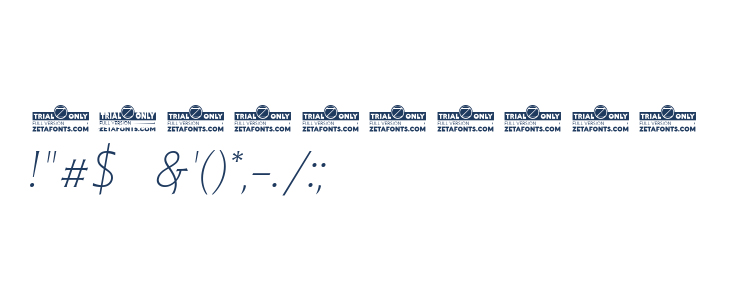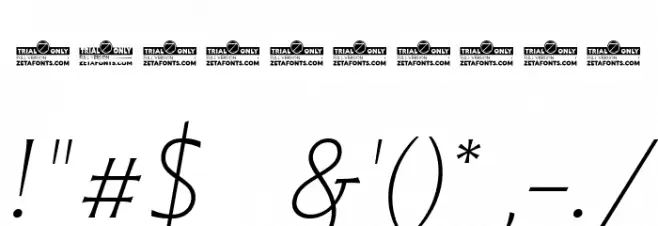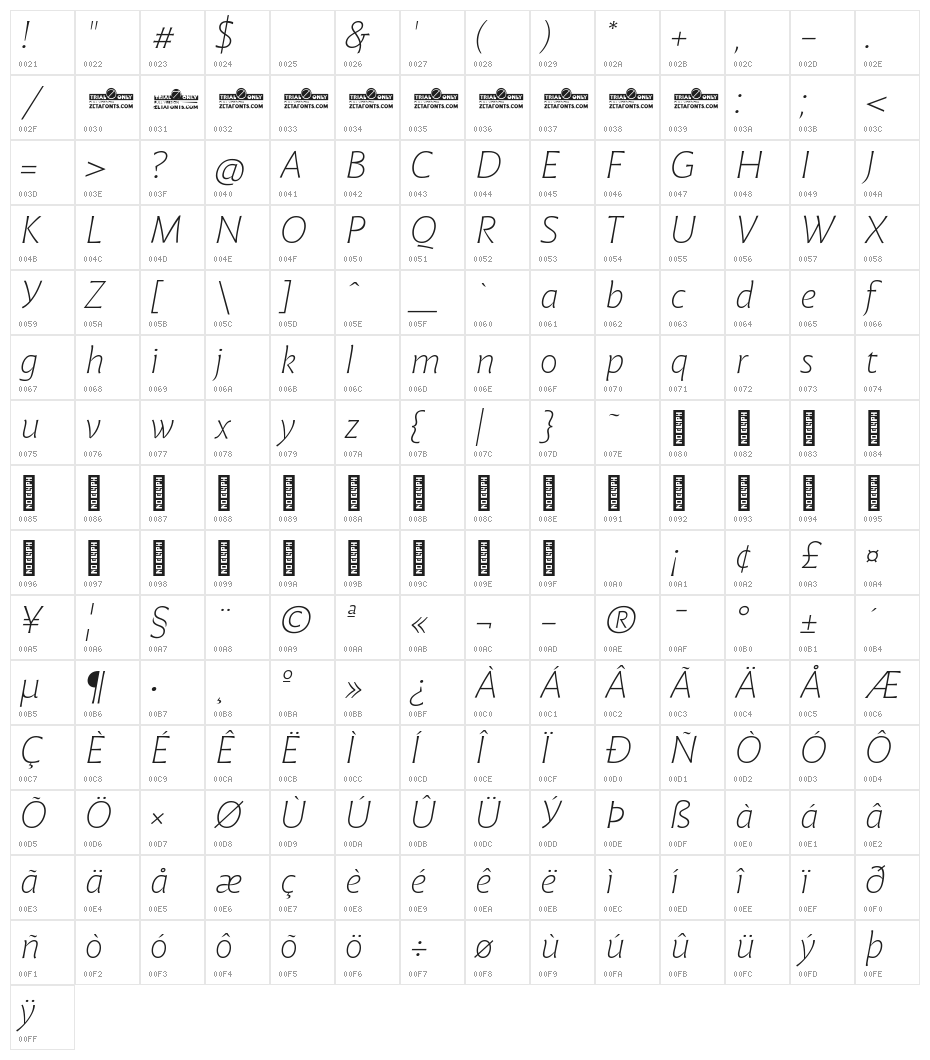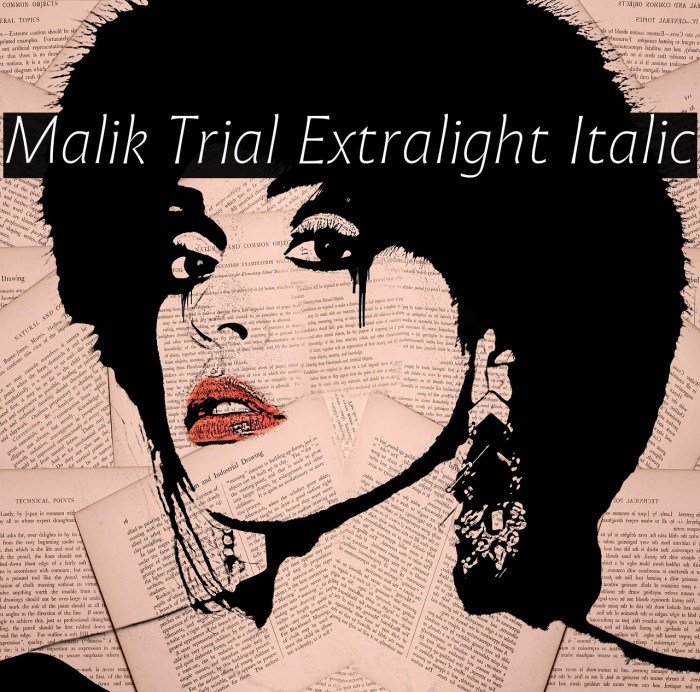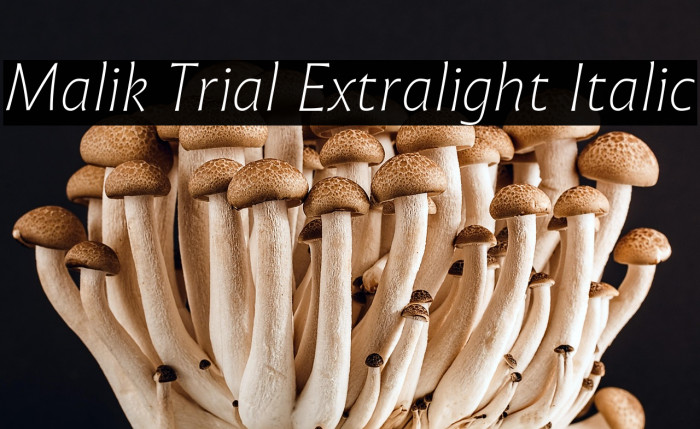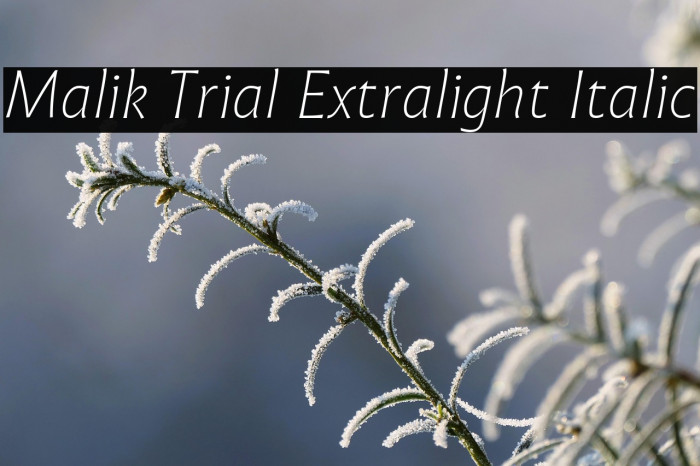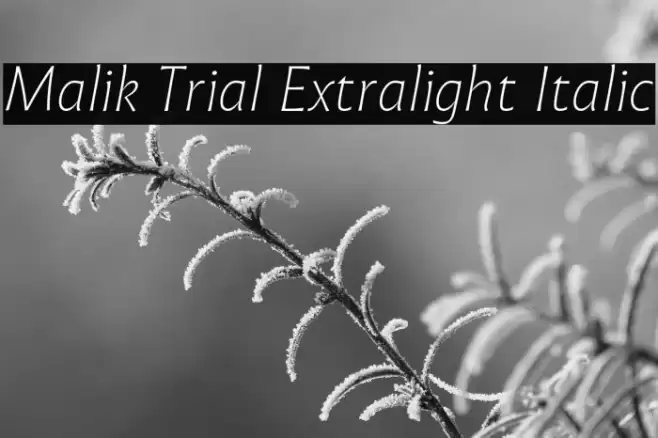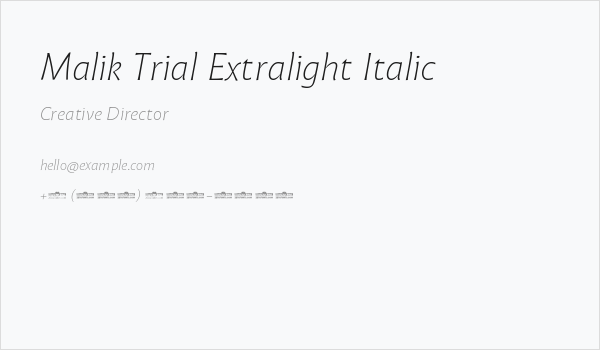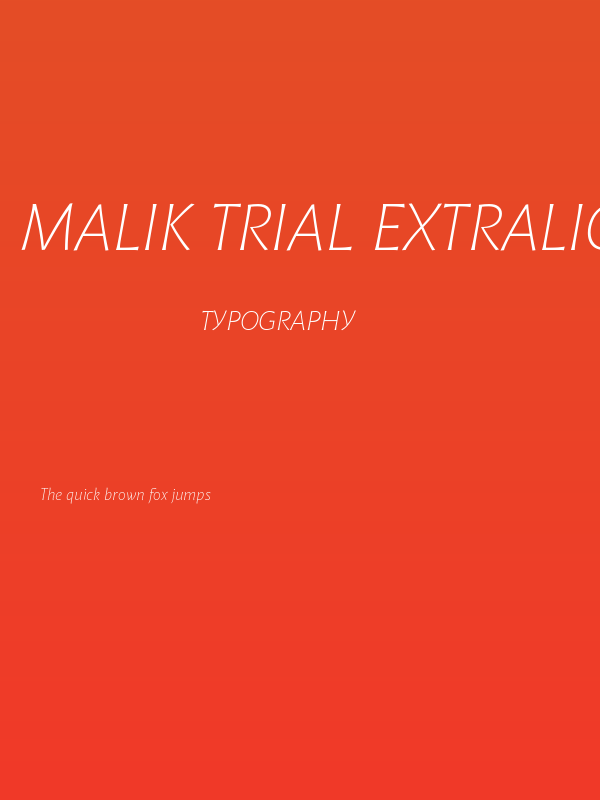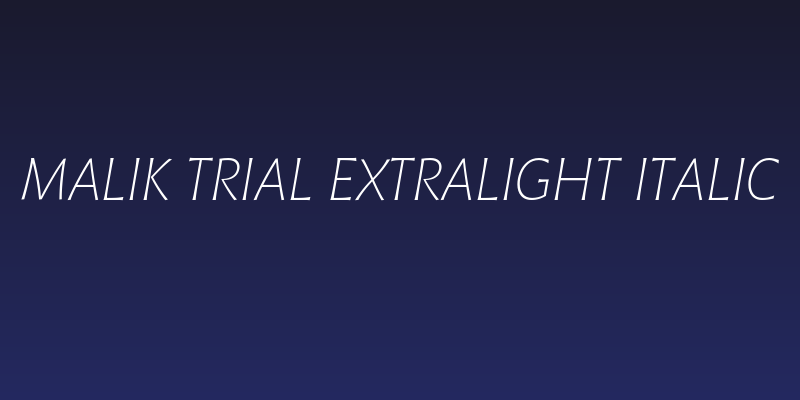
Malik Trial Extralight Italic Font
Malik Trial Extralight Italic Description
This typeface features an elegant and refined design, characterized by its extra-light weight and italic style. The letters have a slight slant, contributing to a sense of motion and fluidity. The strokes are thin and delicate, providing a sophisticated and airy appearance. The font maintains a consistent stroke width, with minimal contrast, which enhances its modern and sleek look. The characters are well-spaced, ensuring readability while maintaining a graceful aesthetic. This font is suitable for projects that require a touch of elegance and modernity.
| Use Case | Headlines, Logos, Editorial design |
| Proposed Projects | Ideal for fashion magazines, luxury branding, elegant invitations, and modern editorial design. |